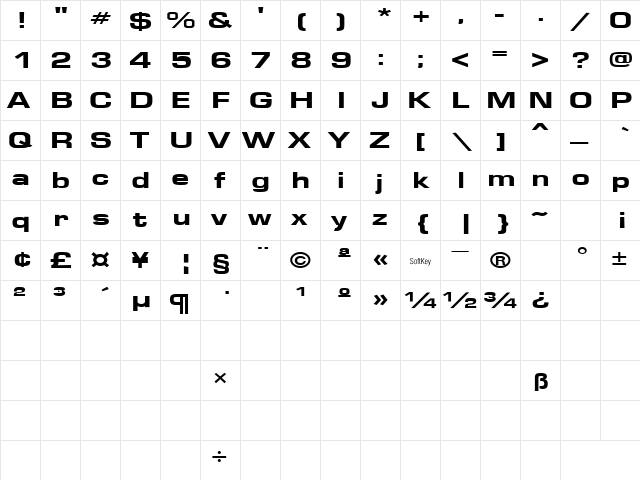
EuroseHeavyface Regular
Design Context for EuroseHeavyface Typeface
EuroseHeavyface takes a measured approach to typography — its balanced proportions and neutral character make it a reliable workhorse for both digital and print work.